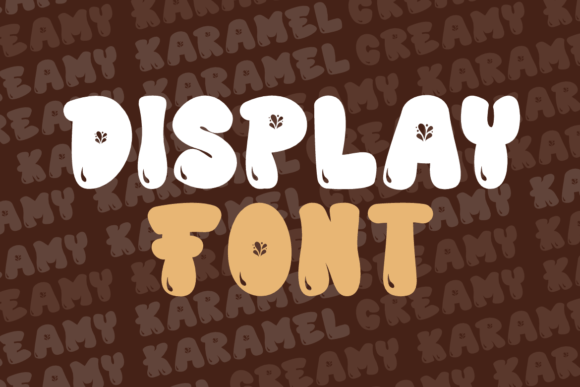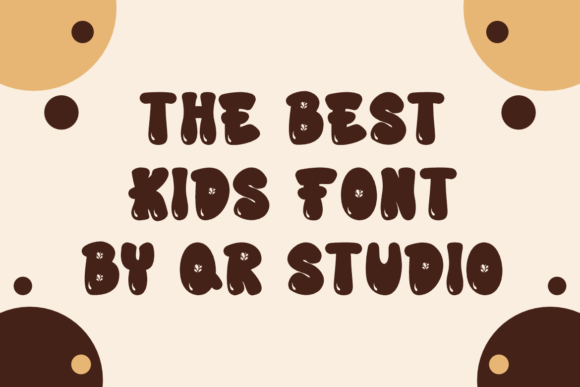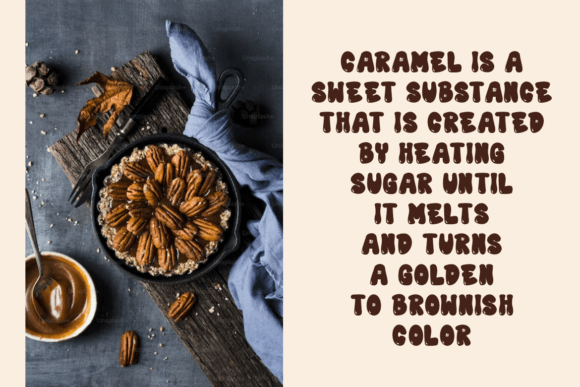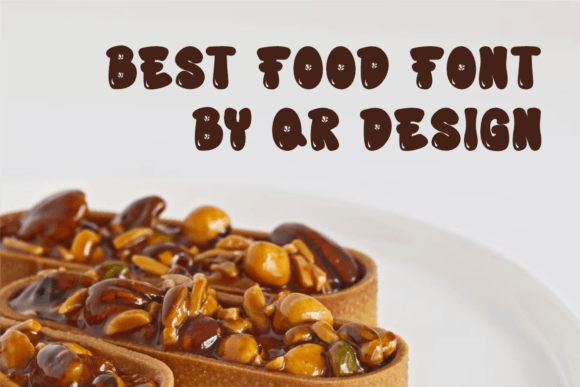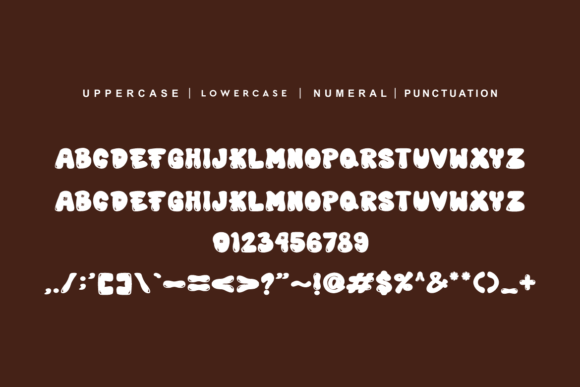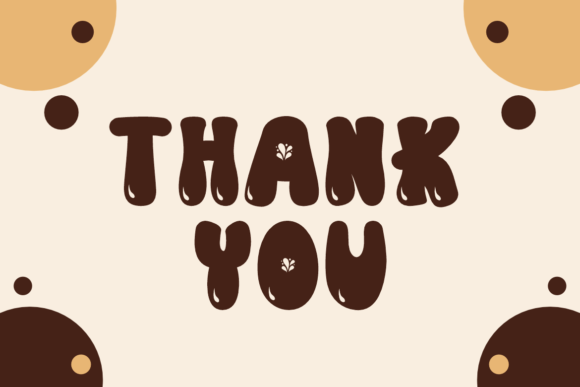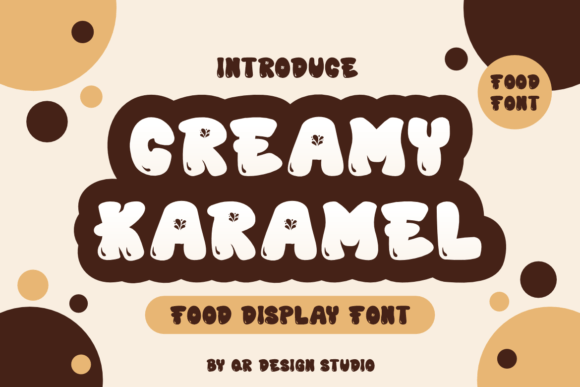
Creamy Karamel Font: The Ultimate Display Font for Friendly Designs
Are you looking for a font that exudes friendliness and playfulness? Look no further than Creamy Karamel, a childish and easy-to-read display font that’s perfect for a variety of design projects. In this article, we’ll dive into the features and benefits of Creamy Karamel, and explore how it can become your go-to font for crafts, digital design, presentations, and more.
The Charm of Creamy Karamel
Creamy Karamel is a display font that is sure to capture the hearts of designers and crafters alike. Its childish and playful aesthetic makes it perfect for projects that require a friendly and approachable tone. The font’s rounded edges and smooth curves give it a soft, creamy texture that’s reminiscent of caramel treats.
Whether you’re designing a greeting card, crafting a DIY project, or creating a presentation, Creamy Karamel is the perfect choice. Its easy-to-read design ensures that your message is conveyed clearly, making it ideal for a wide range of applications.
Key Features of Creamy Karamel
- Childish and playful aesthetic: Creamy Karamel’s design is sure to bring a smile to your face. Its playful and childish aesthetic makes it perfect for projects that require a friendly tone.
- Easy-to-read design: The font’s smooth curves and rounded edges make it easy to read, even at small sizes.
- Versatile: Creamy Karamel is perfect for a wide range of design projects, from crafts and digital design to presentations and greeting cards.
- Display font: Creamy Karamel is designed to make a statement. Its bold and playful design ensures that your message is conveyed clearly and effectively.
Benefits of Using Creamy Karamel
So why choose Creamy Karamel for your design projects? Here are just a few benefits of using this versatile font:
- Adds a personal touch: Creamy Karamel’s playful design adds a personal touch to your projects, making them more relatable and engaging.
- Perfect for kids’ projects: The font’s childish aesthetic makes it perfect for projects designed for kids, such as children’s books, nursery decor, and kids’ party invitations.
- Great for branding: Creamy Karamel’s friendly and approachable tone makes it perfect for branding projects that require a playful and youthful vibe.
- Easy to pair with other fonts: Creamy Karamel’s simple design makes it easy to pair with other fonts, ensuring that your project looks cohesive and professional.
Using Creamy Karamel for Your Design Projects
So how can you use Creamy Karamel for your design projects? Here are a few ideas to get you started:
- Crafts: Use Creamy Karamel to add a personal touch to your craft projects, such as scrapbooking, card making, and DIY decor.
- Digital design: Creamy Karamel is perfect for digital design projects, such as social media graphics, blog posts, and email newsletters.
- Presentations: Add a playful touch to your presentations with Creamy Karamel. Its easy-to-read design ensures that your message is conveyed clearly.
- Greeting cards: Use Creamy Karamel to create friendly and approachable greeting cards for any occasion.
Creamy Karamel is a versatile and playful display font that’s perfect for a wide range of design projects. Its childish and easy-to-read design makes it a great choice for crafts, digital design, presentations, and greeting cards. With its friendly and approachable tone, Creamy Karamel is sure to become your go-to font for any occasion. So why wait? Try Creamy Karamel today and add a touch of friendliness to your designs!